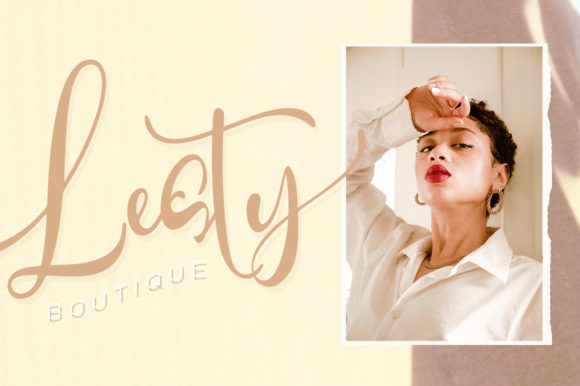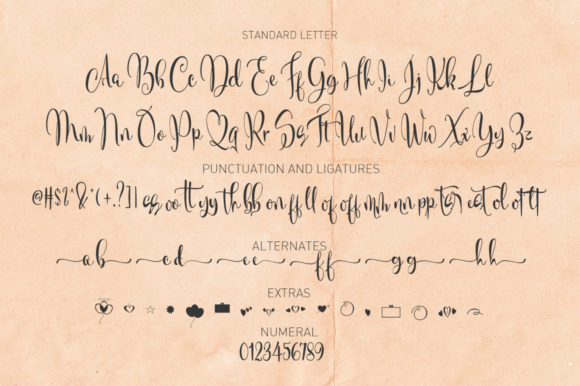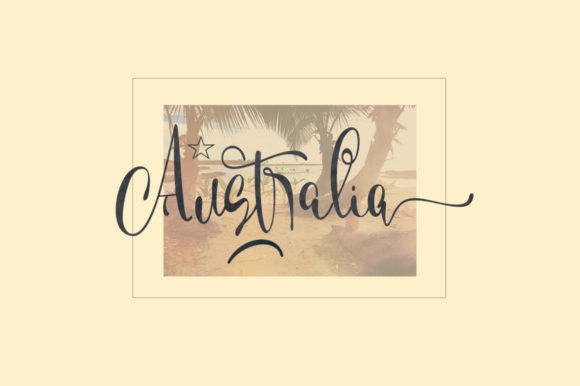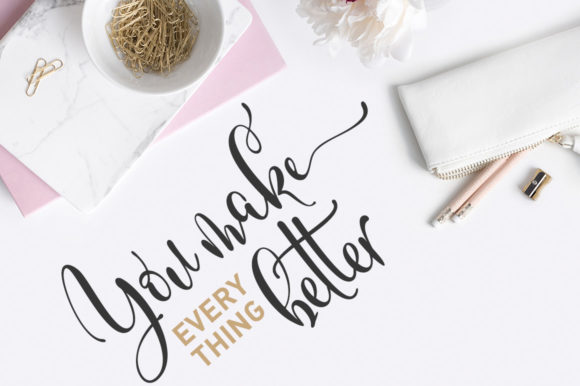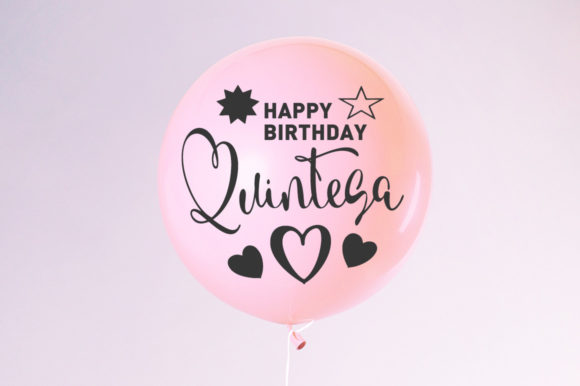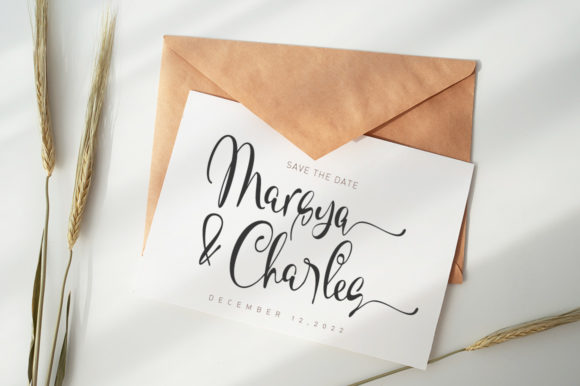
Introduction to Shellonitha Font
As a designer, you know that the perfect font can elevate any project from ordinary to extraordinary. I still remember the moment I stumbled upon a beautiful, handwritten font that made my design come alive. It was like a breath of fresh air, and I knew I had to share it with the world. That’s why I’m excited to introduce you to the lovely Shellonitha Font.
With its sweet and cursive handwriting style, Shellonitha Font is the perfect addition to any design project. Whether you’re working on a wedding invitation, a greeting card, or a blog post, this font will add a touch of joy and romance to your design. Its high quality and transparent background make it a valuable resource for designers, and the best part? It’s available for free download, making it a must-have for any creative project.
- Perfect for designers and artists looking for a distinctive and creative font to elevate their projects.
Honest Review: Shellonitha Font
As a designer, I’m always on the lookout for high-quality design resources that can elevate my creative projects. Recently, I stumbled upon the Shellonitha Font, and I must say, it’s been a game-changer for me.
Here are some things that work well: ✨ The font is incredibly versatile and can be used for a wide range of creative projects, from logos to typography. It’s also super easy to use, even for those who aren’t font experts. Plus, it’s a free download, which is a major plus in my book. The font also comes with a transparent background, which makes it perfect for web design projects.
Now, let’s talk about the limitations: ⚠️ While the font is high-quality, it may not be suitable for every project. For example, it may not be the best choice for projects that require a lot of customization. Additionally, the font is only available for personal use, which may be a limitation for some designers.
Overall, I’m thoroughly impressed with the Shellonitha Font. It’s a fantastic addition to any designer’s toolkit, and I would highly recommend it to anyone looking for a high-quality, free font. Just be aware of its limitations, and you’ll be all set for a successful design project.
How to Use Shellonitha Font
The Shellonitha Font is a high-quality design resource ideal for creative projects requiring a unique and eye-catching style. With its transparent background and elegant design, it’s perfect for adding a touch of sophistication to your work.
Tips for Getting the Most Out of Shellonitha Font
To get the most out of the Shellonitha Font, use it in combination with other high-quality design resources, such as graphics and images. Experiment with different font sizes and styles to create a unique and visually appealing design.
The Shellonitha Font is ideal for a variety of creative projects, including:
- Wedding invitations and party decorations
- Book covers and magazine layouts